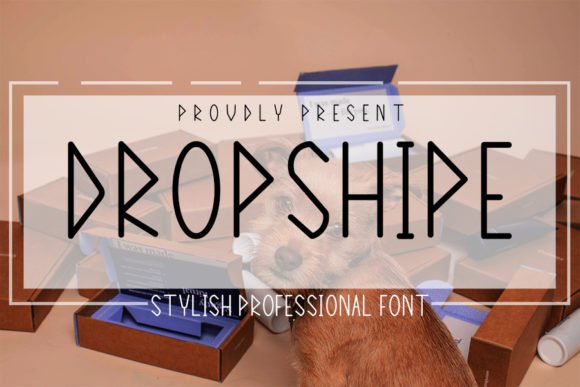
Have you ever found yourself staring at a blank page, unsure of where to start your next design project? You’ve got a clear vision in your mind, but the right font seems elusive. This is where the magic happens – the perfect font can elevate your work from good to great, and we’ve found just the thing: the Dropshipe Font.
This sleek sans serif font is the ultimate problem-solver for designers. Its versatility makes it easy to pair with a wide range of projects, from modern websites to creative marketing materials. With the Dropshipe Font, you can take your designs to the next level and make them truly stand out. Whether you’re a seasoned pro or just starting out, this font is a valuable addition to your toolkit.
Key Features of Dropshipe Font
- Font Family: Dropshipe is a modern sans-serif font family designed for digital use.
- Character Set: Dropshipe includes a comprehensive set of characters, including uppercase and lowercase letters, numbers, punctuation, and special characters, supporting multiple languages.
- Font Sizes: Available in 6 weights: Light, Regular, Medium, Bold, Heavy, and Black, allowing for a wide range of design applications and creative freedom.
- Unique Characteristics: Dropshipe’s distinctive geometric shapes, clean lines, and subtle rounded edges make it an ideal choice for modern digital designs, such as branding, logos, and user interfaces.
Dropshipe Font Review
Dropshipe Font is a clean, modern sans-serif typeface that’s perfect for digital interfaces. The font works well in various contexts, such as
- mobile apps
- websites
- digital marketing materials
✨ The font is highly legible, even at small font sizes, making it a great choice for UI design. Additionally, the font’s simple yet stylish aesthetic makes it versatile enough to be used in a wide range of industries.
However, there are a few limitations to consider. For instance, the font may not be as effective in certain print materials, such as
- business cards
- brochures
⚠️ The font’s simplicity can also make it less memorable than other fonts, which may be a concern for branding purposes.
Overall, I’d give Dropshipe Font 4 out of 5 stars. It’s a solid choice for digital design projects, but may not be the best fit for print materials or branding projects that require a more unique font. With some careful consideration of its limitations, Dropshipe Font can be a valuable addition to any designer’s toolkit.
Tips for Getting the Most Out of Dropshipe Font
To get the most out of Dropshipe Font, experiment with different font sizes, colors, and styles to create visually appealing designs. You can also use Dropshipe Font in combination with other fonts to create a unique and modern look.
Dropshipe Font is ideal for use in branding, marketing materials, and digital products. It’s also suitable for use in social media graphics, website headers, and other digital content.
Alternatives to Dropshipe Font for Designers
Montserrat is a popular sans-serif font designed by Julieta Ulanovsky. It’s a great alternative to Dropshipe Font for modern and minimalist designs. Montserrat is clean, elegant, and highly legible, making it perfect for digital products, mobile apps, and websites.
Comparison to Dropshipe Font: Montserrat has a more modern and sleek look compared to Dropshipe Font, which is more vintage-inspired. Montserrat is also more versatile and suitable for a wider range of designs.
Open Sans is a highly readable sans-serif font designed by Steve Matteson. It’s a great alternative to Dropshipe Font for designs that require a clean and neutral look. Open Sans is perfect for websites, mobile apps, and digital products that need a clear and concise font.